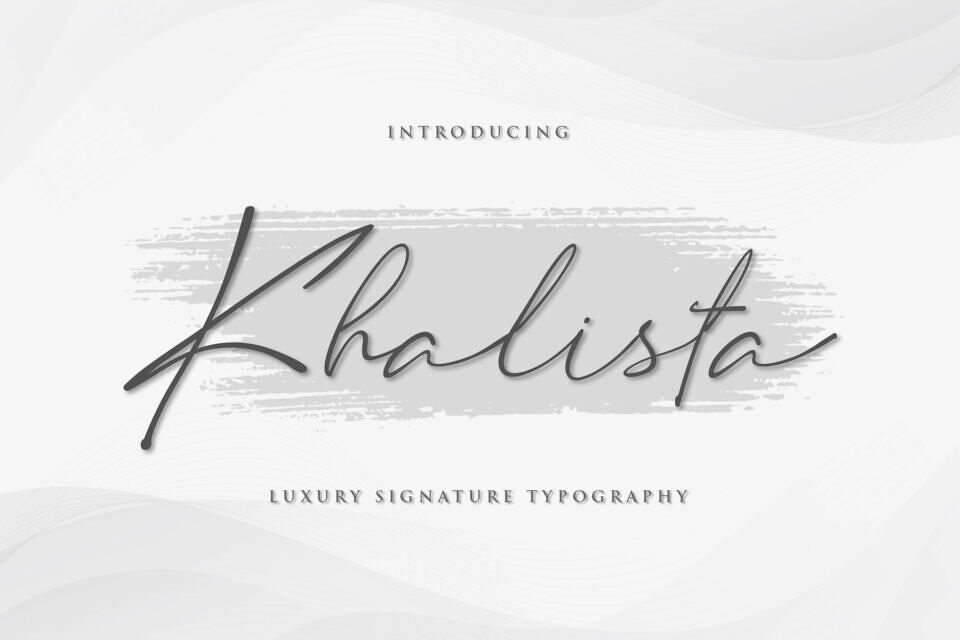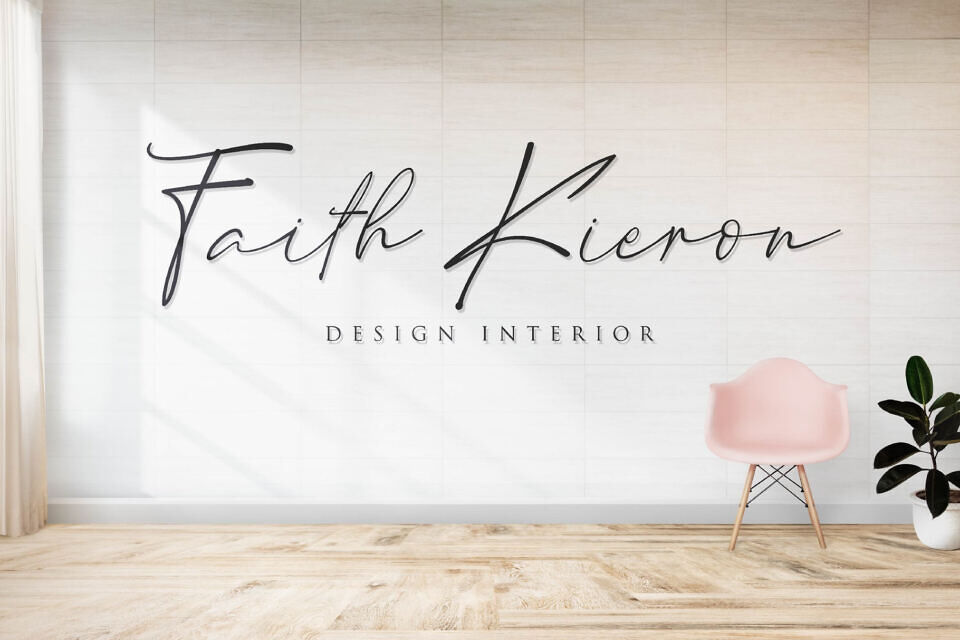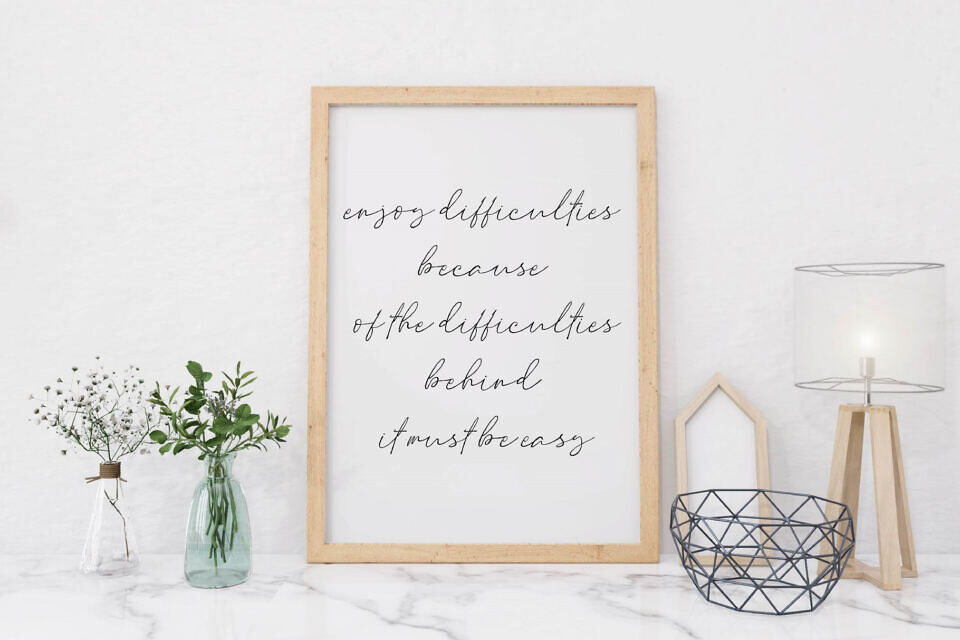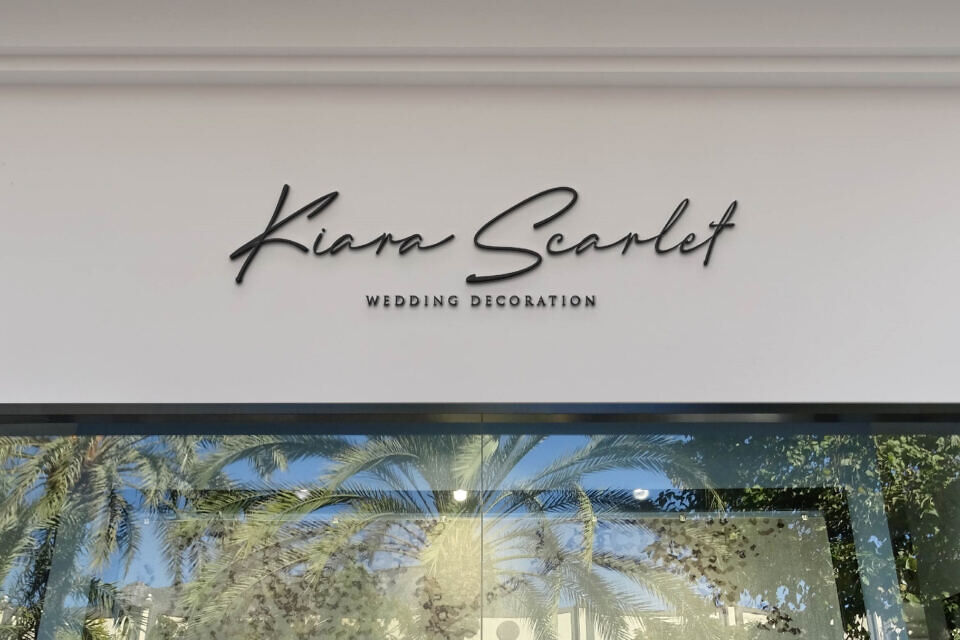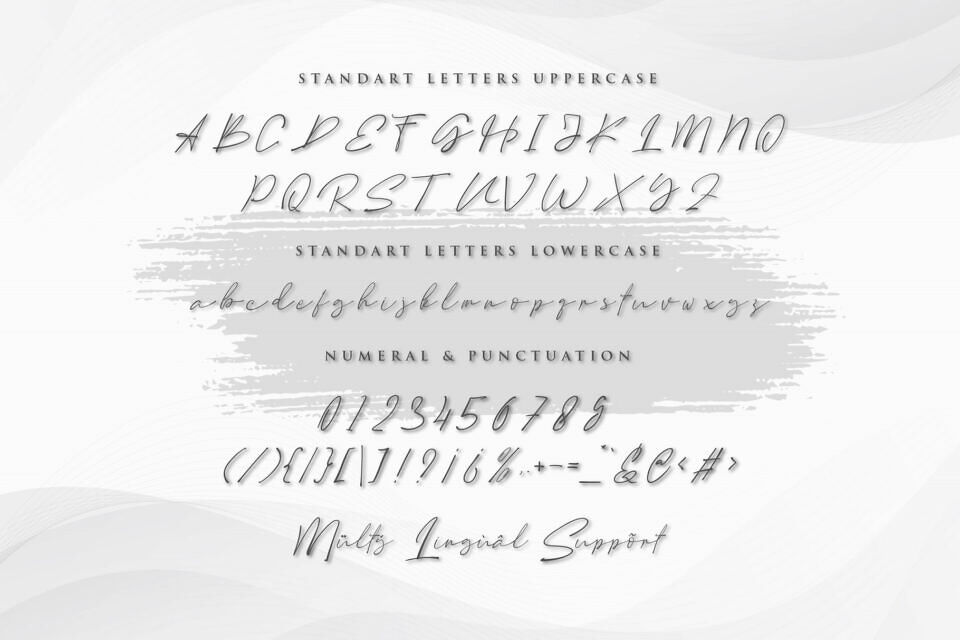
Khalista Font
Khalista is a beautiful script font for a variety of designs. Khalista can be used for products such as handcraft, product packaging, quotes, product design, craftsmen, lanels, photography, watermarks, logos & branding and much more.